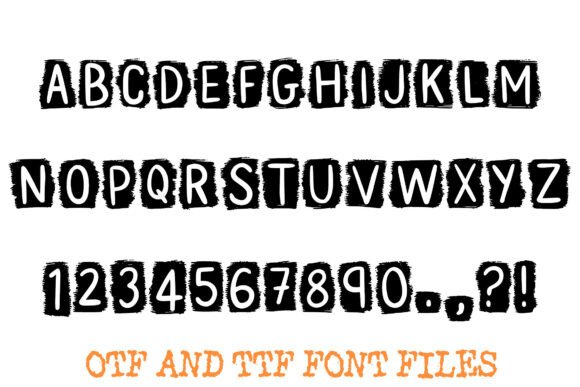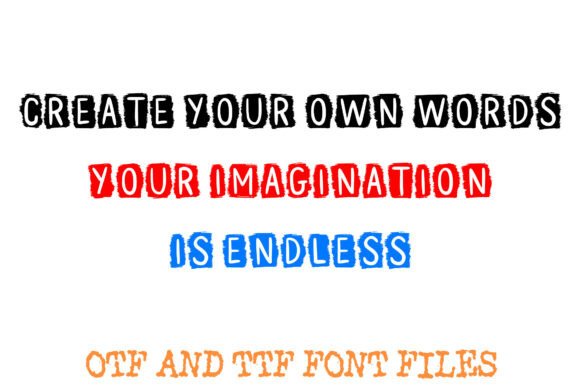
Introduction to Negative Space Grunge Font
Unleash striking visual impact with Negative Space Grunge Font.
This artistic typeface uses bold, textured shapes to define letters through the absence of form, making them emerge from a raw, grunge-infused background It’s an optical illusion designed for memorable, edgy statements.
Key Features of Negative Space Grunge Font
Why Choose Negative Space Grunge Font?